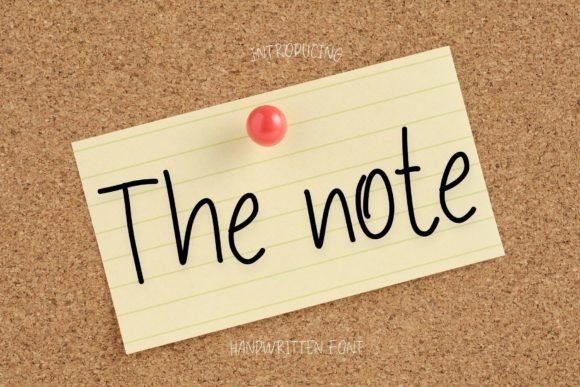
Behold, "The Note Font" - a delightful handwritten font crafted by Brown Cupple Fonts, ready to add a touch of playfulness and authenticity to your design projects. This script font family is a perfect companion for creating typography logos that exude elegance and charm.
Step into a world of creativity with "The Note Font," where your artistic vision takes center stage. Whether you're crafting captivating blog posts, designing eye-catching logos, or bringing your brand to life, this font has your back. Its versatility shines through in every project, from greeting cards and invitations to planners and photo albums.
With "The Note Font," authenticity takes center stage. Its whimsical strokes add a personal touch to your designs, evoking a sense of genuine connection with your audience. Embrace the charm of handwritten notes and let your creations radiate warmth and originality.
Say goodbye to monotony and usher in a new era of design excitement with "The Note Font." Its ability to transform ordinary projects into captivating works of art is truly remarkable. Add it to your design arsenal and witness the magic unfold as your creations come to life, brimming with personality and charm.